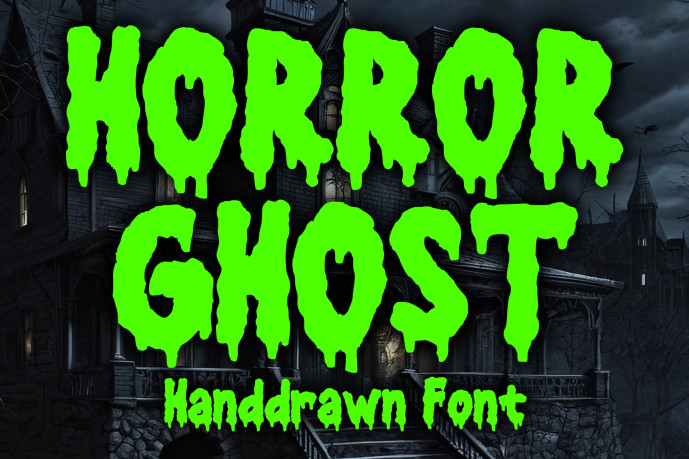
Horror Ghost Font
Designer: MVMET
Horror Ghost Font oozes vintage fright with bold, ink-dripped terminals and rough, ragged edges that echo grindhouse posters, pulp horror comics, and metal album titles. Thick, high-impact forms and tight spacing make headlines scream on sight, while uneven cuts and splatters add hand-made menace.
Set it huge for logos, tees, stickers, and banners, or stack short words for punchy book covers and event posters. Pair with a stark sans for contrast or let it stand alone in stark black and blood-red palettes. If your project needs instant Halloween attitude—gritty, drippy, and gloriously over-the-top—Horror Ghost brings the chills.